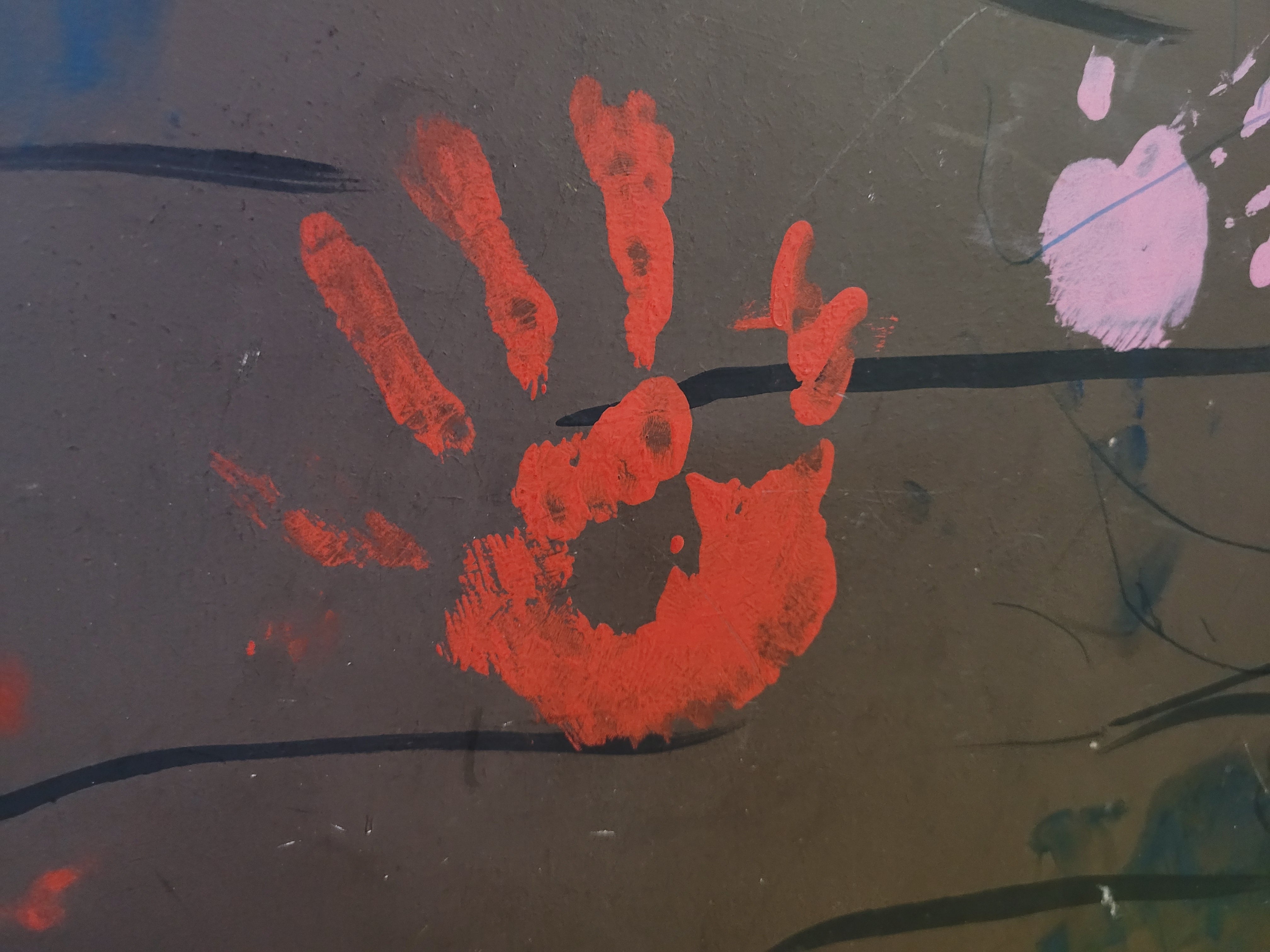
Mark's creation is a tribute to the Peckham theatre and its legacy of cultivating children's confidence and imagination. The theatre was a place where the children grew and transformed. One day, sitting and watching the building, I came across a handprint and it stuck with me, so I decided to use it as an important feature of the font. The handprint is a mark of collaboration - a space created by many and for many. The children grow and take this into their lives, so the theatre has an emotional mark on them. This notion of leaving a mark is what inspired the name Mark - memories that leave a mark on you.